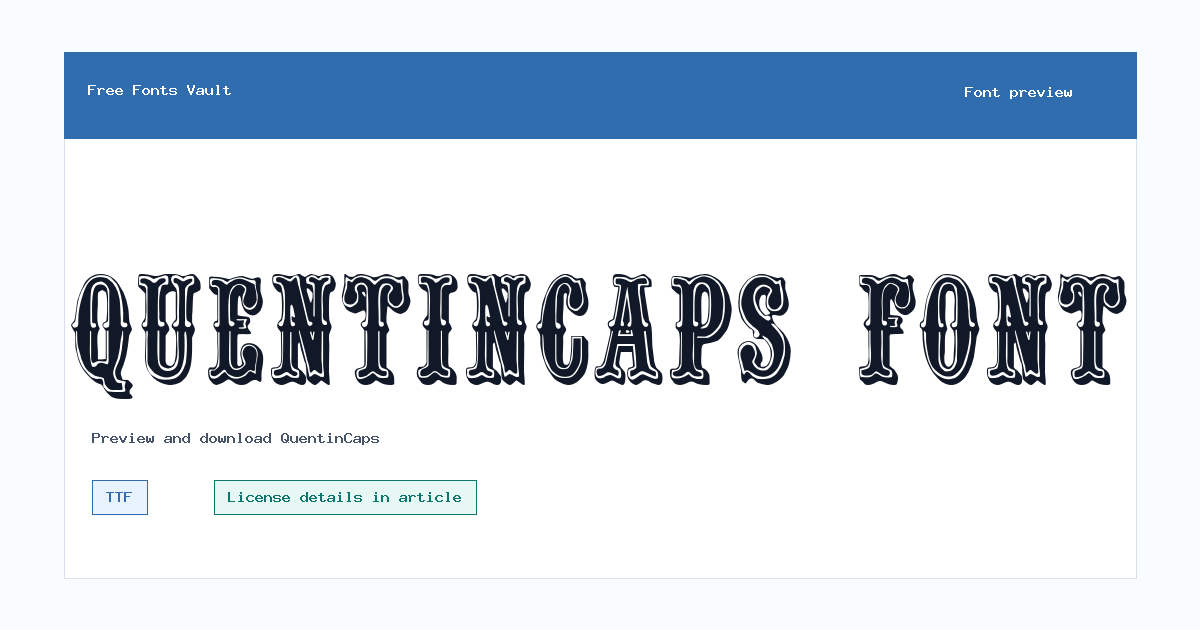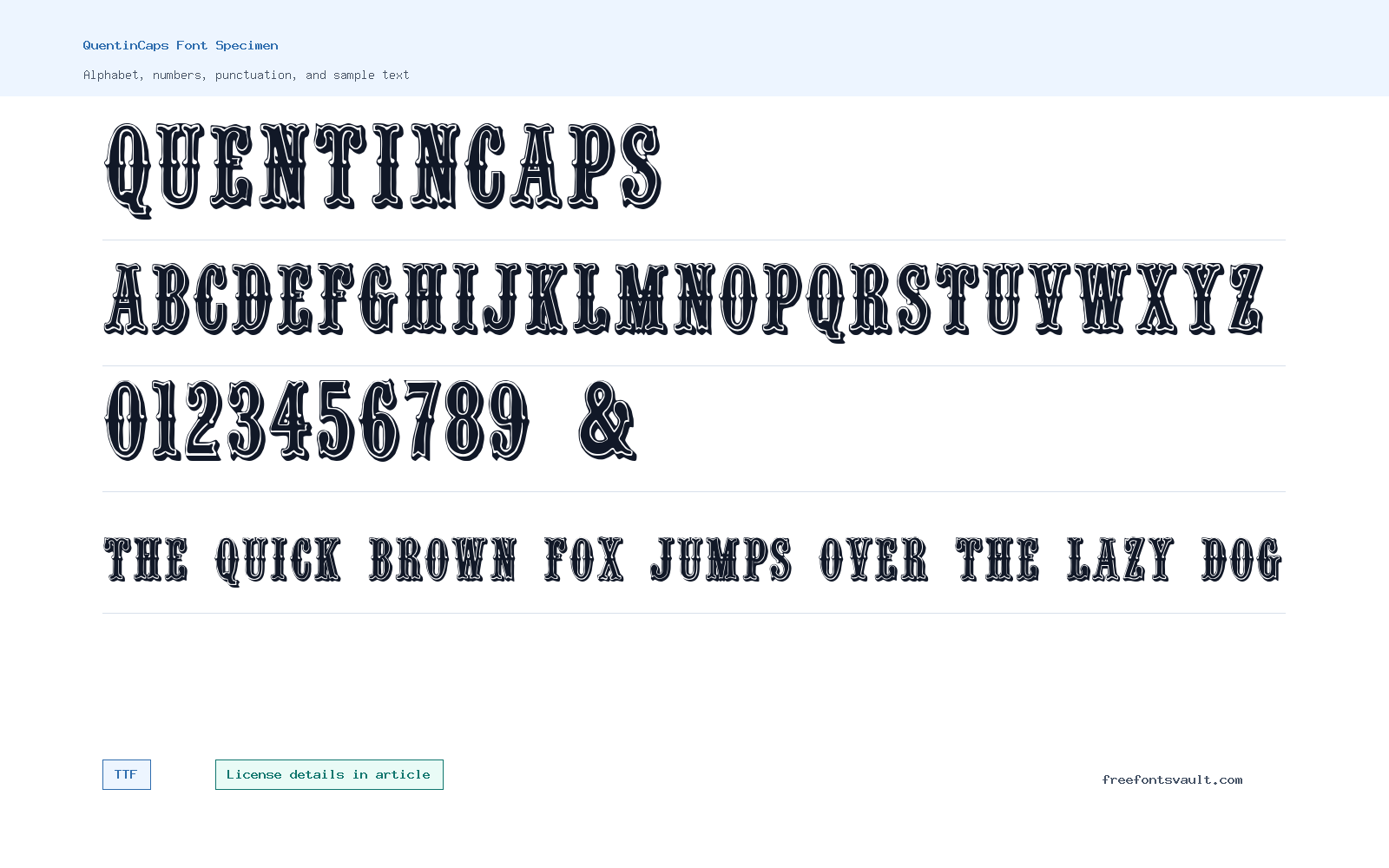
QuentinCaps
QuentinCaps font.
QuentinCaps is a decorative TTF display font for short words, initials, monograms, and title lines that need more personality than a plain text face.
About QuentinCaps
QuentinCaps is the kind of font to test when the letters themselves need to become part of the artwork. Its caps-focused name points toward display settings such as initials, badges, invitations, posters, labels, book covers, and short title treatments. Type your actual word or initials in the preview first, because decorative caps can look excellent with one letter pair and awkward with another.
The file is a regular TTF with normal style and 400 weight metadata. That keeps installation simple, but it also means the design should be used as a single-feature style. Do not plan on fake bold, fake italic, or paragraph use unless you have tested the result carefully. For most layouts, QuentinCaps should carry the headline while a quieter font handles everything else.
Spacing matters with decorative capitals. Check the first and last letters of your main word, look at tight pairs such as TA, WA, AV, and YO, and test punctuation if the design includes dates or initials. If the preview looks too ornate at small size, increase the size or simplify the surrounding layout.
- Decorative caps direction for display typography
- Good for initials, monograms, short titles, and label-style text
- Best used as an accent rather than a body font
- Credited to Typographer Mediengestaltung
- Poster titles, cover lettering, and invitation headings
- Monograms, initials, badges, and decorative labels
- Logo draft exploration with short names or marks
- Packaging concepts and boutique-style graphics
- Cards, certificates, and ornamental title lines
- Pairing with a simple readable font for supporting text
Use QuentinCaps sparingly and let it breathe. Try your exact initials or title, adjust size before changing spacing, and pair it with a neutral companion font for paragraphs, captions, addresses, and small interface text.
Who designed QuentinCaps?
The designer name shown for QuentinCaps is Typographer Mediengestaltung.
What is QuentinCaps best for?
It works best for decorative caps, initials, monograms, posters, labels, invitations, and other short display text.
Can I use QuentinCaps for body text?
It is better as an accent font. Use a simpler companion typeface for long paragraphs and small supporting text.